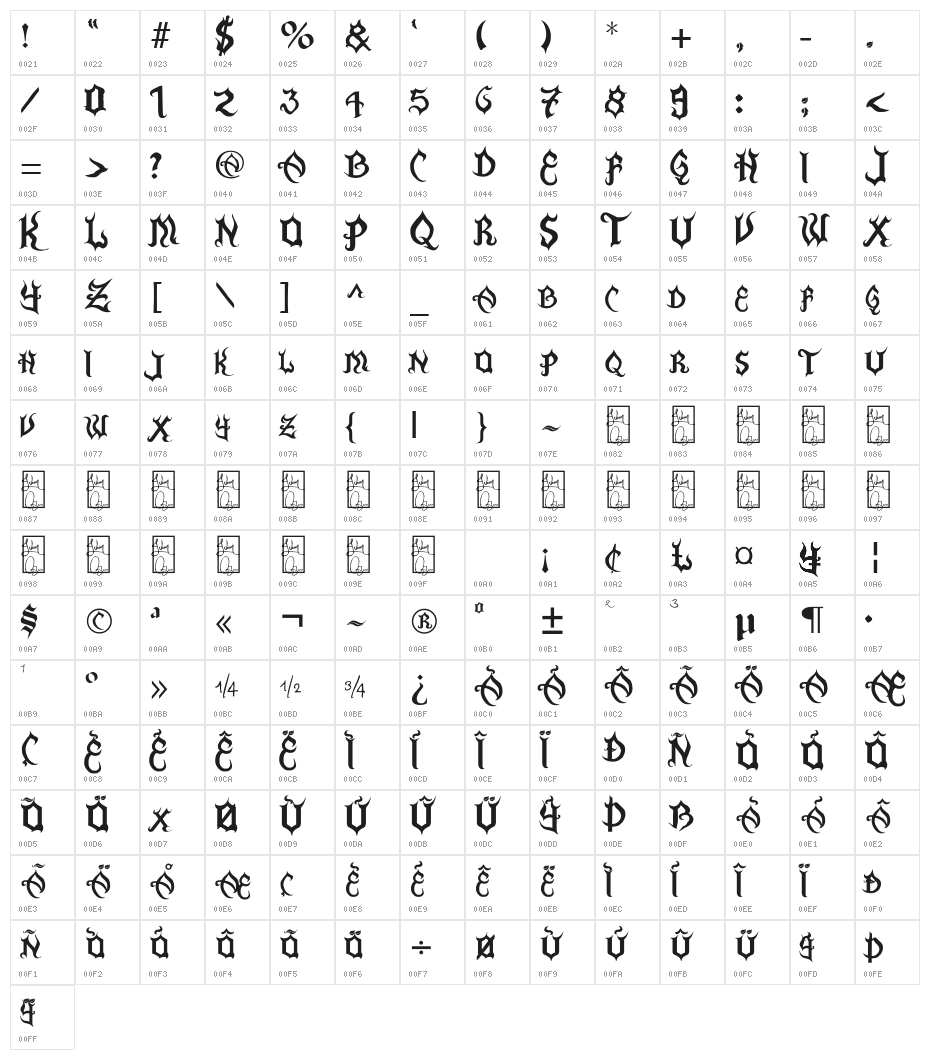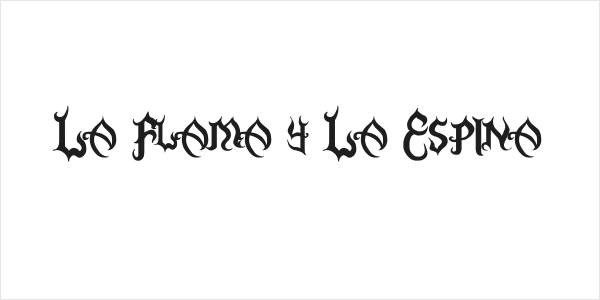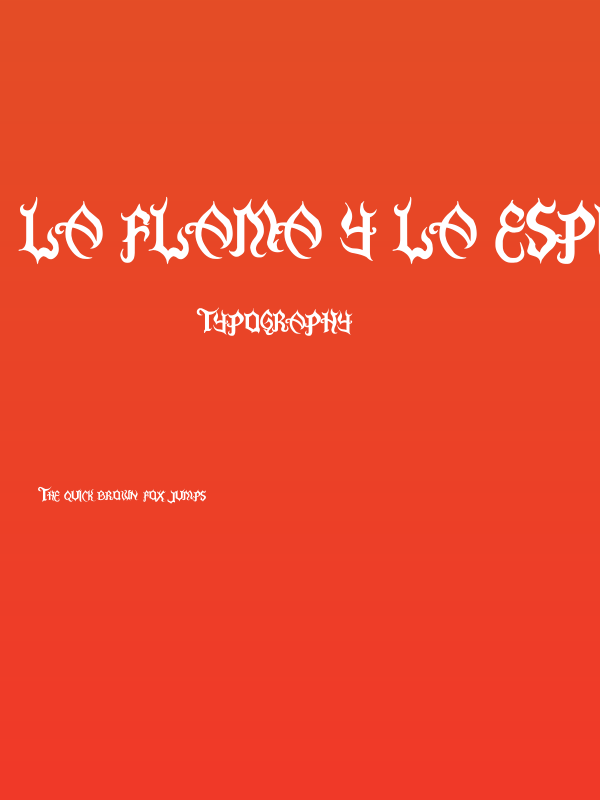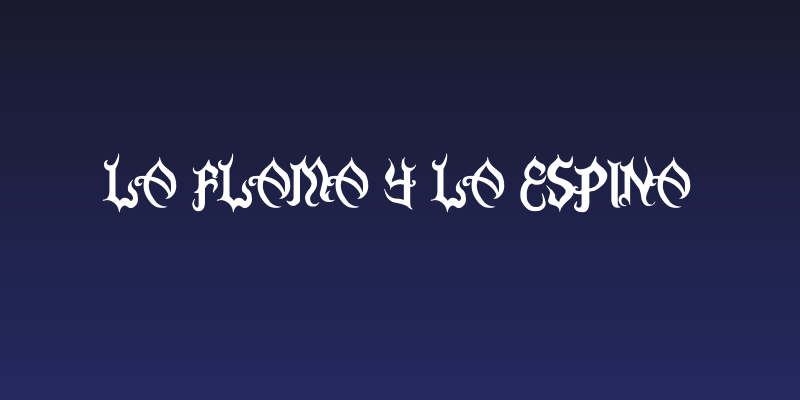
La Flama y La Espina Font
La Flama y La Espina Description
This font exhibits a bold and dramatic style, reminiscent of traditional blackletter typefaces. The characters are ornate, with sharp, angular lines and intricate detailing that give it a gothic and medieval appearance. The uppercase and lowercase letters maintain a consistent design, featuring pointed serifs and elaborate curves. The numerals and special characters follow the same aesthetic, ensuring a cohesive look across all glyphs. This font's striking appearance makes it suitable for projects that require a strong visual impact.
Overall StyleGothic, Medieval, Decorative
Proposed ProjectsIdeal for use in tattoo designs, gothic-themed posters, album covers, and branding for alternative or historical-themed products.